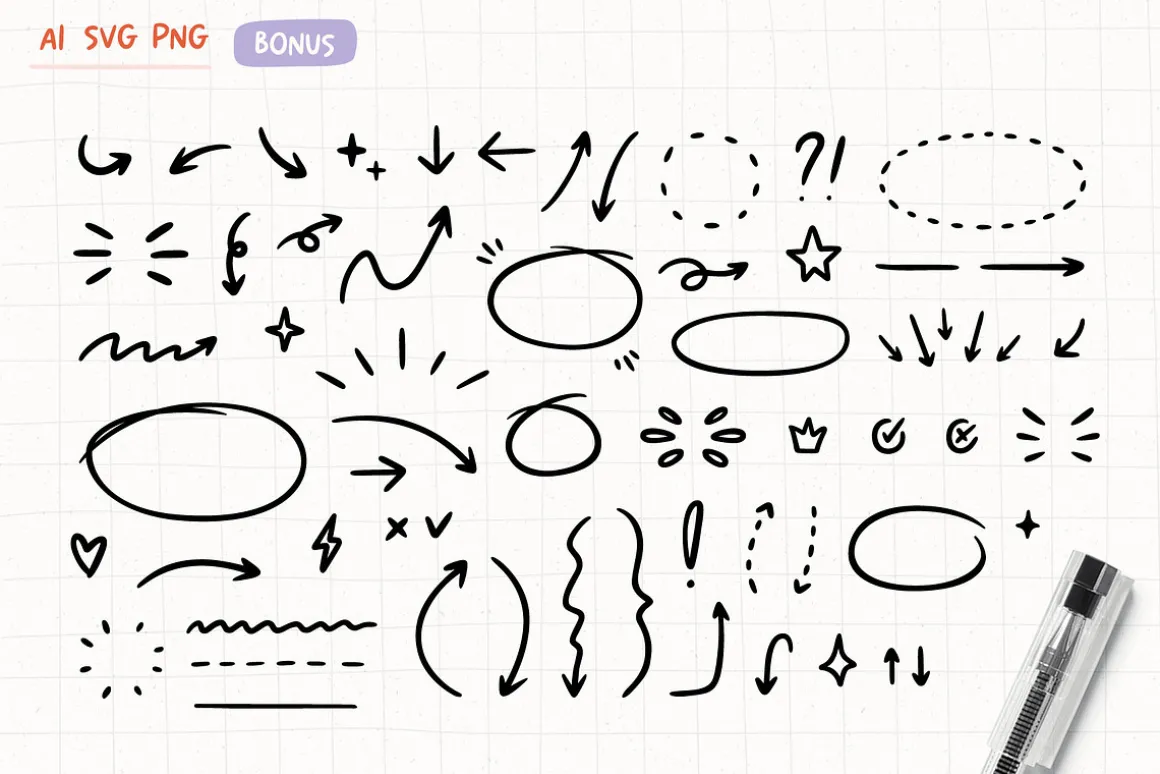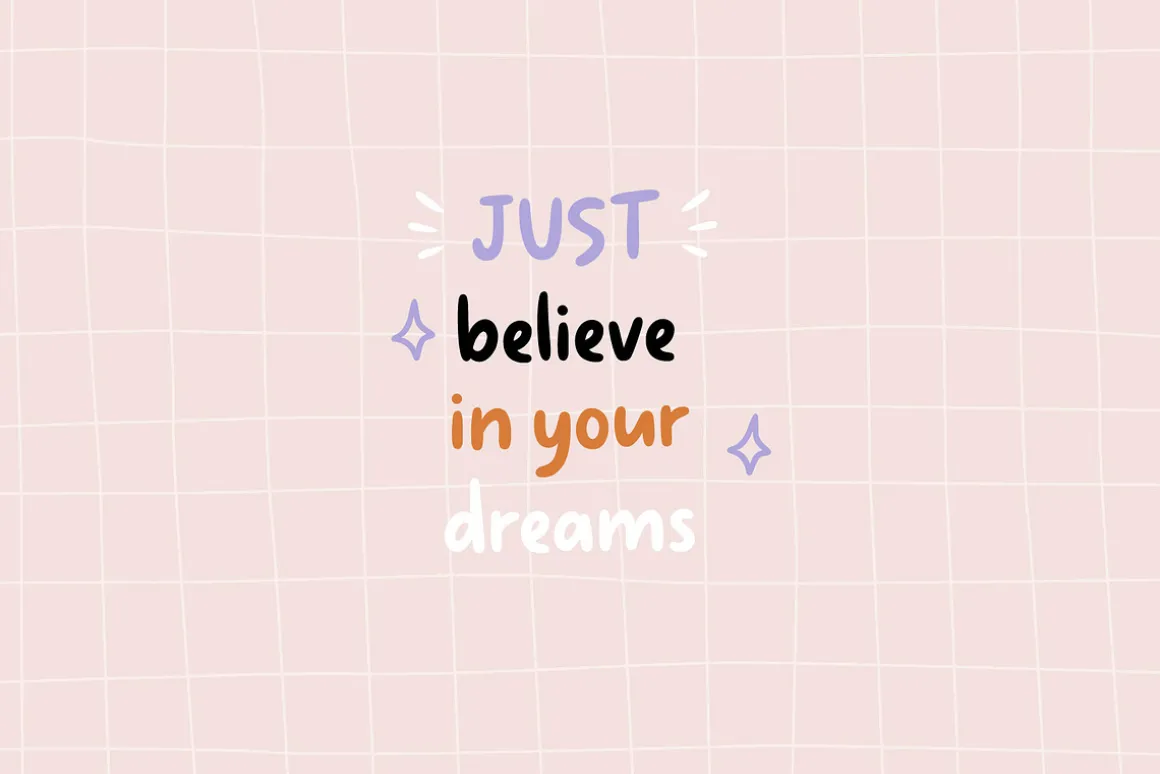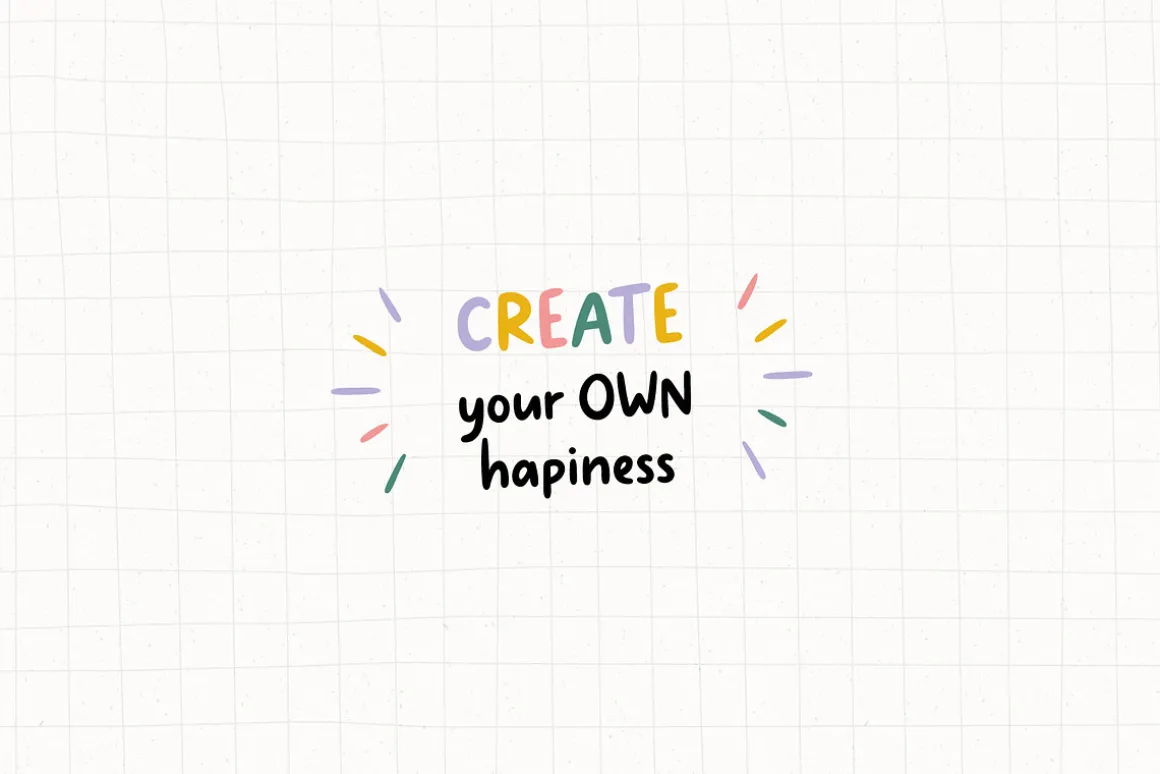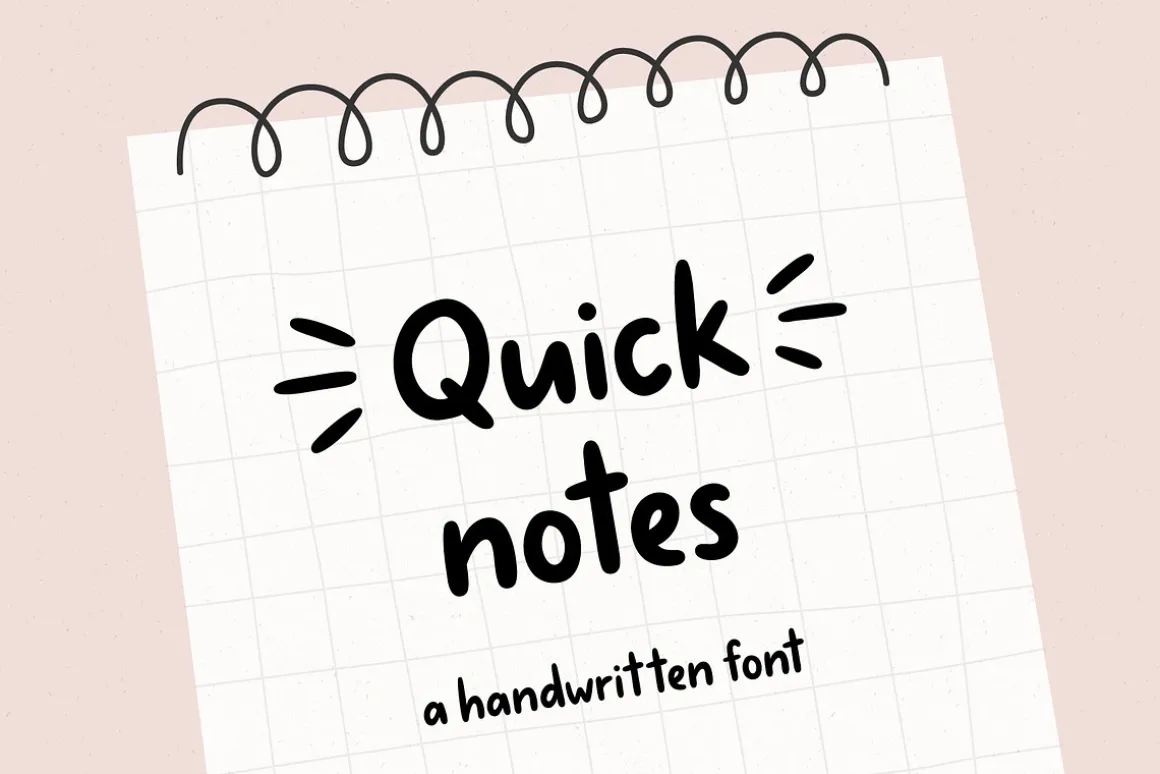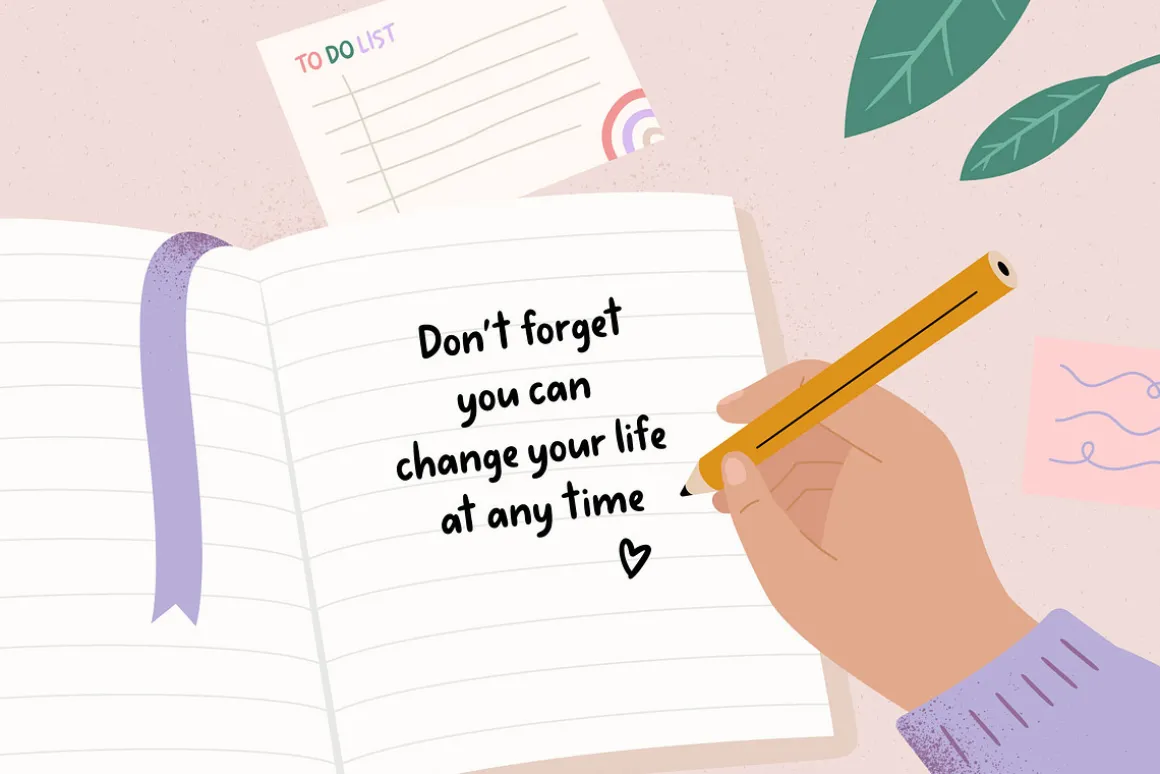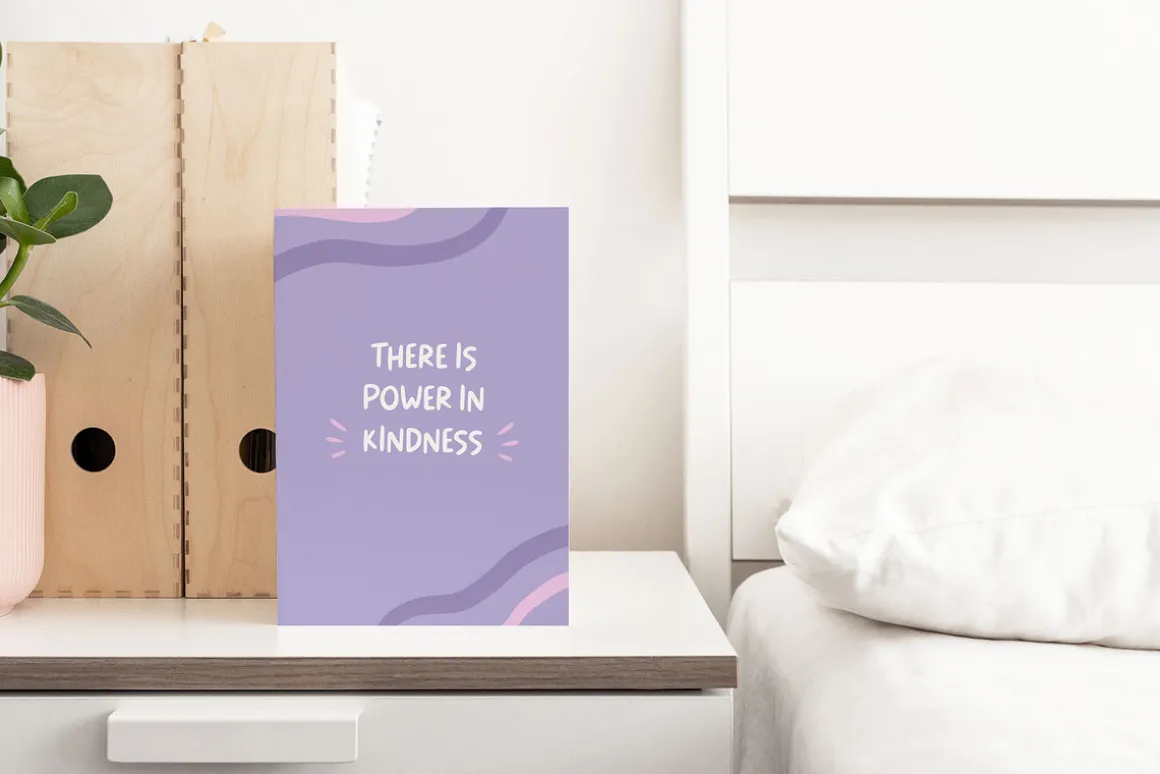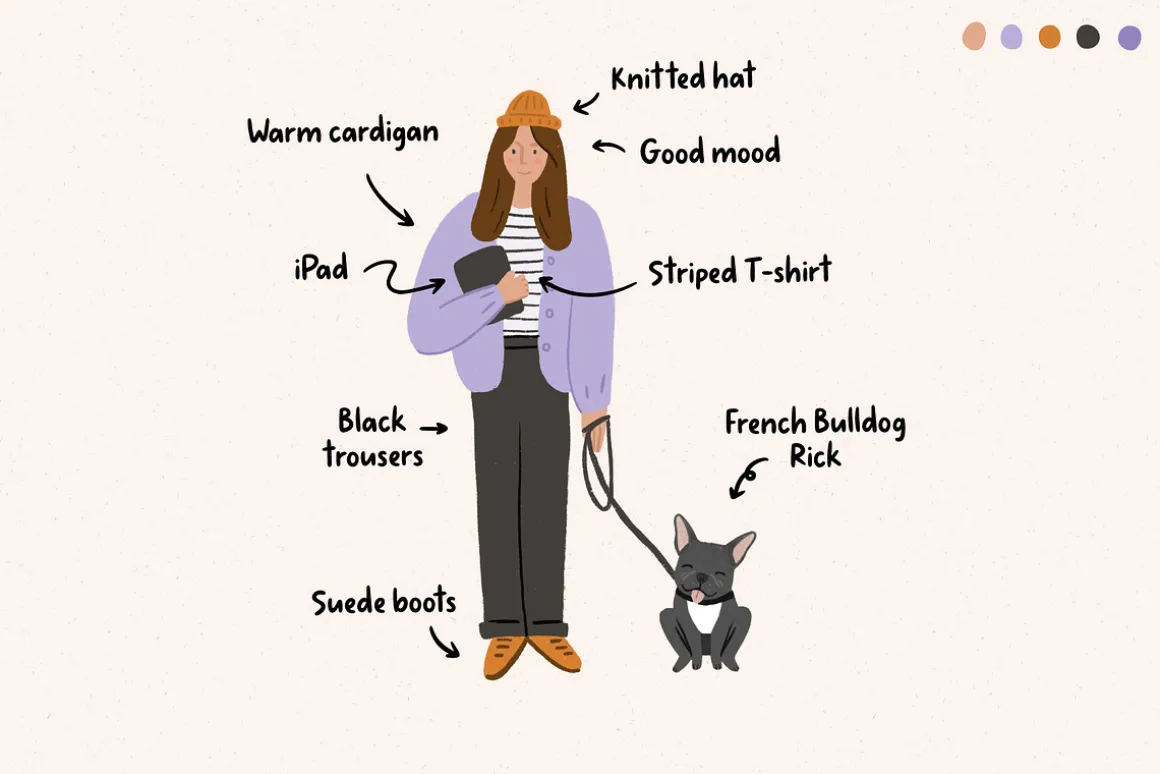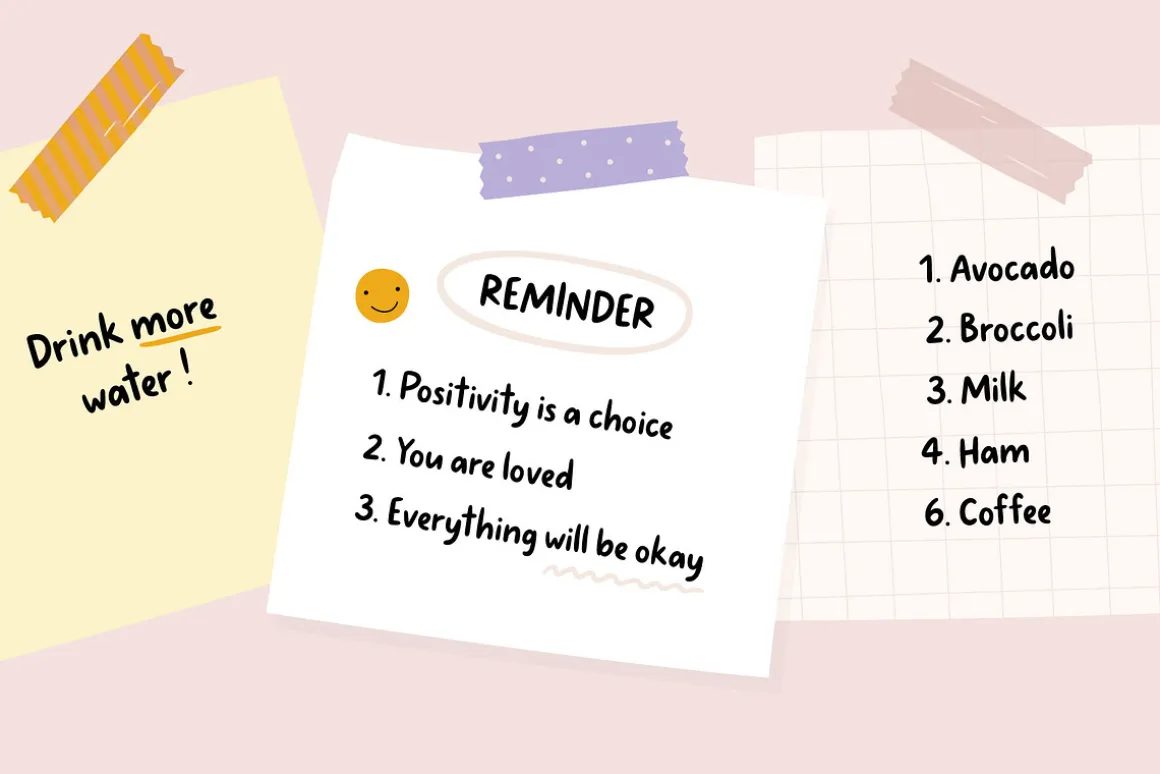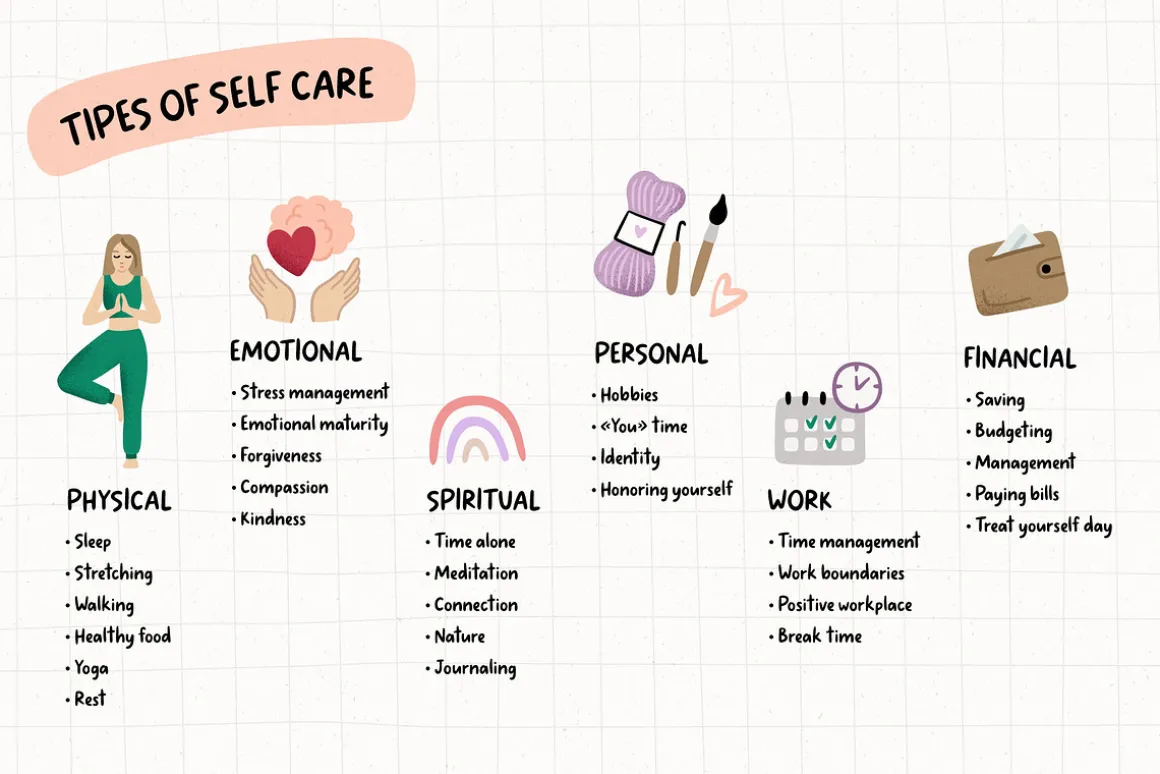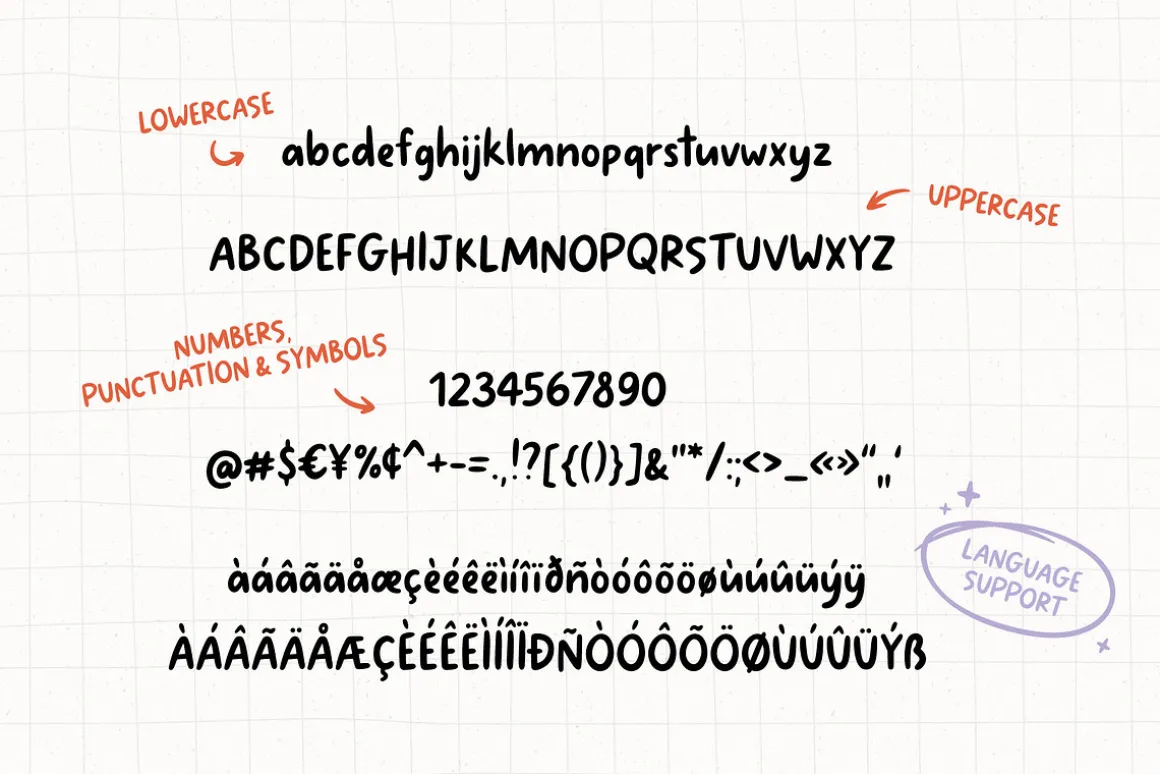
I’d like to present a new font for you!)It was inspired by notes on my iPad. The font looks casual and playful. It’s perfect for handwritten notes, sweet greeting cards, beautiful quotes, and stand-out branding as well. The set contains additional items for your design.